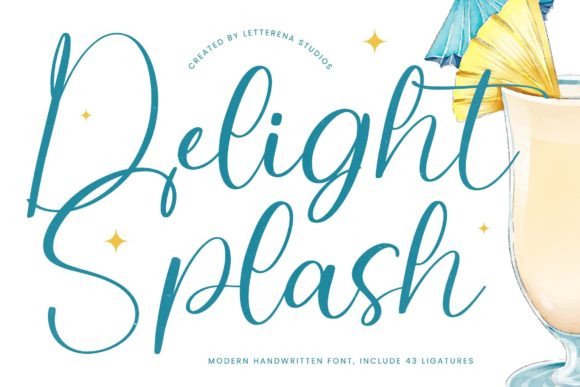
Introducing Delight Splash Font: The Perfect Addition to Your Creative Projects
In the world of typography, fonts play a crucial role in conveying the tone and personality of a brand or project. With the numerous font options available, it can be overwhelming to choose the right one that captures the essence of your creative vision. However, if you’re looking for a modern handwritten font that exudes a fresh and playful style, look no further than Delight Splash Font.
What is Delight Splash Font?
Delight Splash is a modern handwritten font designed to add a personal touch to any project. Its smooth, flowing lines and casual look make it perfect for a wide range of applications, from designing invitations and social media posts to creating engaging content for blogs and websites.
This font is carefully crafted to provide a friendly and creative flair that sets it apart from other fonts. Its unique and playful style makes it an excellent choice for designers, artists, and writers who want to add a touch of personality to their work.
Key Features of Delight Splash Font
- Modern Handwritten Style: Delight Splash boasts a modern handwritten style that is both fresh and playful.
- Smooth Flowing Lines: The font features smooth, flowing lines that give it a casual and approachable look.
- Perfect for Personal Projects: Delight Splash is ideal for personal projects, such as designing invitations, social media posts, and other creative content.
- Easy to Read: The font is easy to read, making it perfect for body text and captions.
- Highly Versatile: Delight Splash can be used for a wide range of applications, from digital content to print materials.
Use Cases for Delight Splash Font
Delight Splash is a versatile font that can be used for various projects and applications. Here are some use cases where Delight Splash excels:
- Invitations and Party Decor: Use Delight Splash to create beautiful and playful invitations, party decorations, and other festive materials.
- Social Media Graphics: Add a personal touch to your social media posts and graphics with Delight Splash.
- Blog and Website Content: Use Delight Splash to create engaging and readable content for your blog or website.
- Branding and Packaging: Delight Splash can be used for branding and packaging materials, such as labels, business cards, and brochures.
Tips for Using Delight Splash Font
To get the most out of Delight Splash, here are some tips to keep in mind:
- Pair with Other Fonts: Delight Splash pairs well with other fonts, such as sans-serif fonts, to create a visually appealing contrast.
- Use for Headings and Titles: Use Delight Splash for headings and titles to add a touch of personality to your content.
- Experiment with Colors: Delight Splash looks great in a variety of colors, so don’t be afraid to experiment and find the perfect hue for your project.
In conclusion, Delight Splash Font is a modern handwritten font that adds a fresh and playful style to any project. Its smooth, flowing lines and casual look make it perfect for a wide range of applications, from designing invitations and social media posts to creating engaging content for blogs and websites.
With its highly versatile and easy-to-read design, Delight Splash is an excellent choice for designers, artists, and writers who want to add a touch of personality to their work. So why not give Delight Splash a try and see how it can elevate your creative projects?